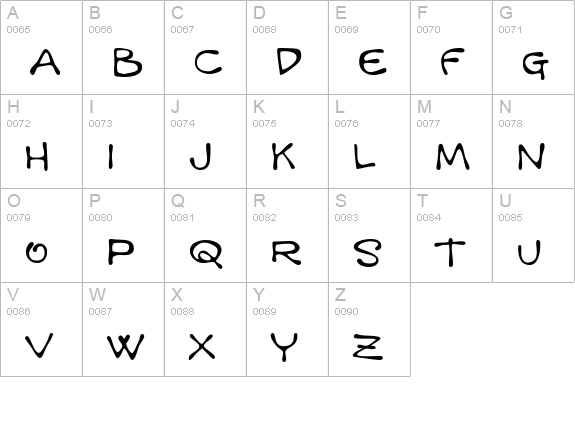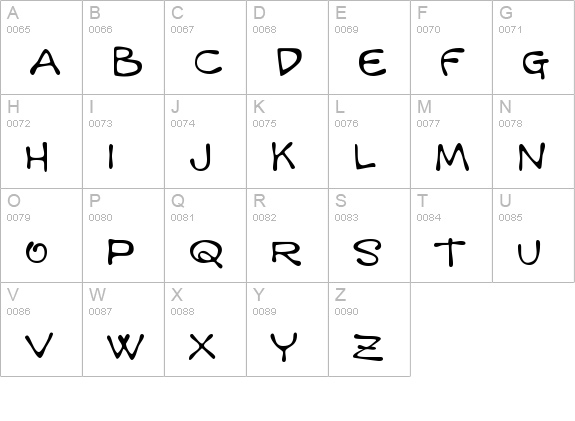
Mandingo BTN is a stunningly bold and expressive font that exudes strength and confidence. With its unique blend of sharp edges and smooth curves, this font stands out among the crowd, making a powerful statement in any design project. Created with meticulous attention to detail, Mandingo BTN captures the essence of modern typographic design, combining contemporary aesthetics with a touch of classic elegance. Its versatility allows it to be used in a wide range of applications, from logos and headlines to posters and branding materials. One of the most remarkable aspects of Mandingo BTN is that it is completely free. That's right, this exceptional font can be freely downloaded at FontsMarket.com, ensuring that designers and creatives of all backgrounds and budgets can access its beauty and impact. Whether you're working on a personal project or a commercial endeavor, Mandingo BTN will elevate your designs to new heights. Its bold presence on the page demands attention and leaves a lasting impression on viewers. Its readability and legibility make it perfect for both digital and print media, ensuring that your message is conveyed with clarity and style. Don't miss out on the opportunity to enhance your designs with Mandingo BTN. Visit FontsMarket.com today to download this incredible font for free and unleash its unlimited potential in your creative projects.